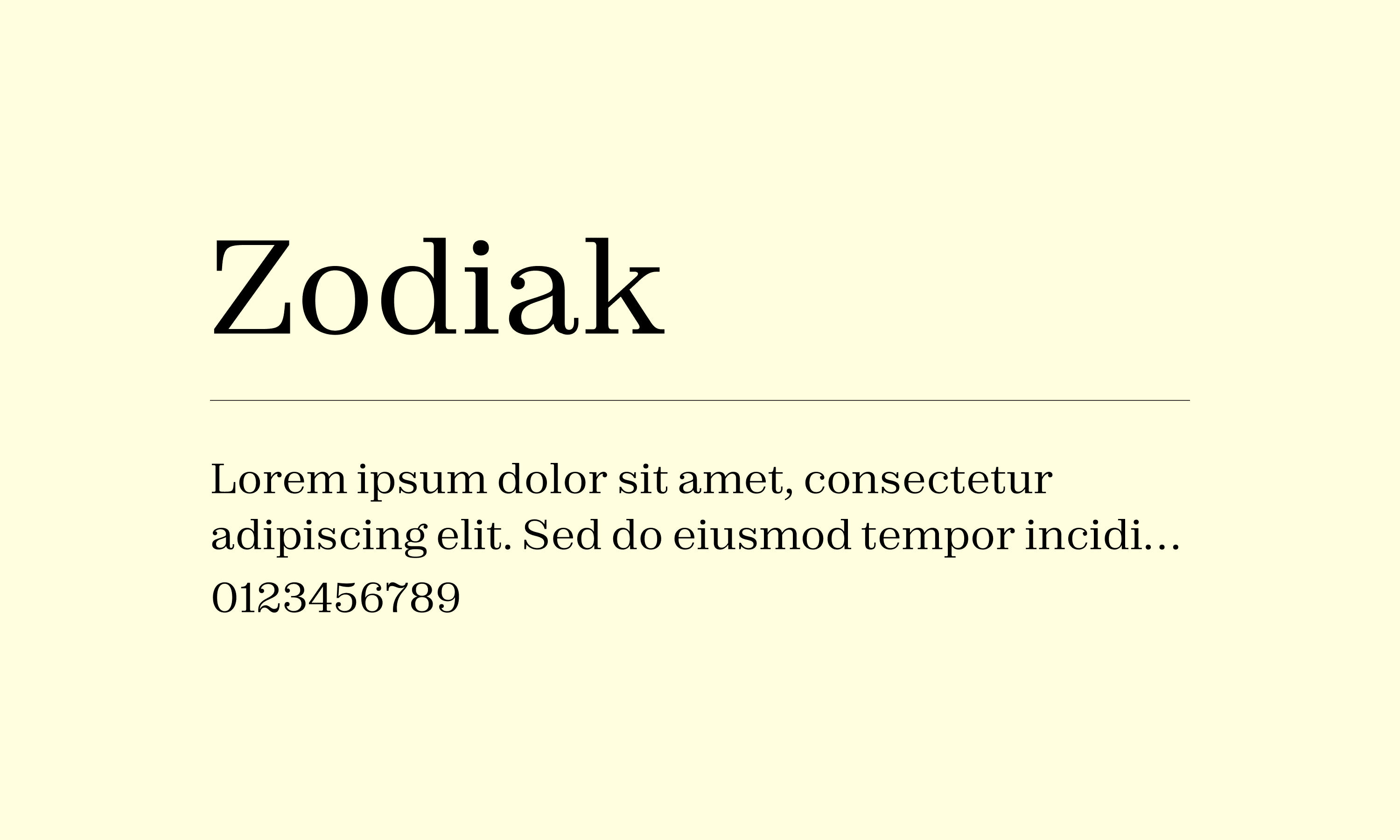
Zodiak
Zodiak is a typeface family with a sturdy serif. Some of its weights are very suitable for typesetting large coherent texts, while the extra thin and extra bold weights excel in display applications. The style is reminiscent of modern newspaper fonts and typefaces from the late 19th century based on the Century style.